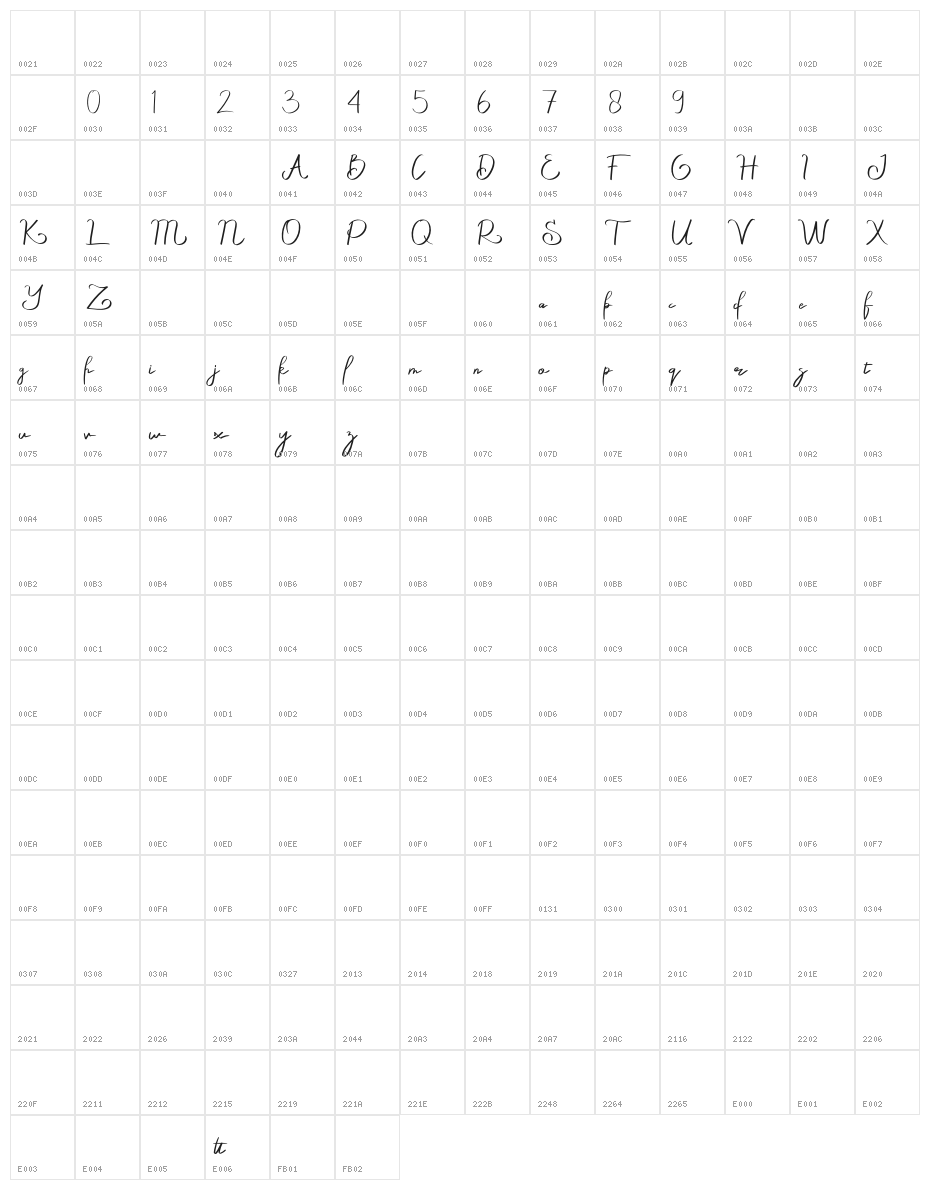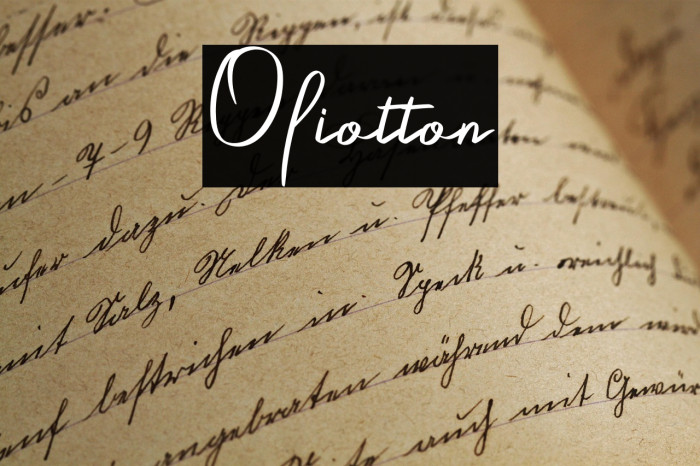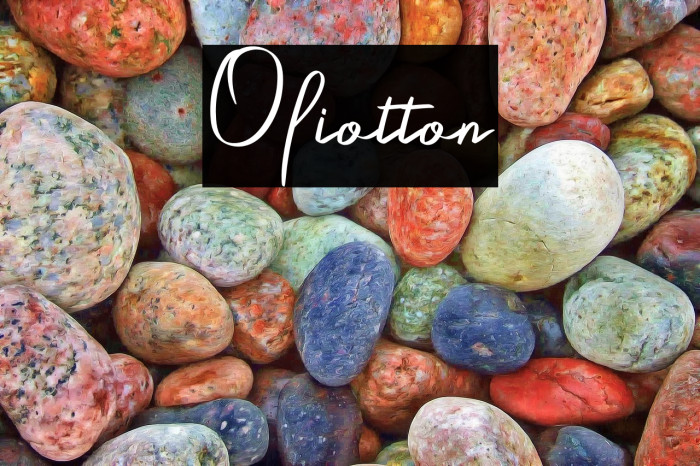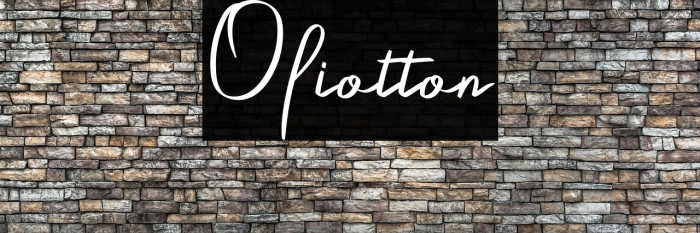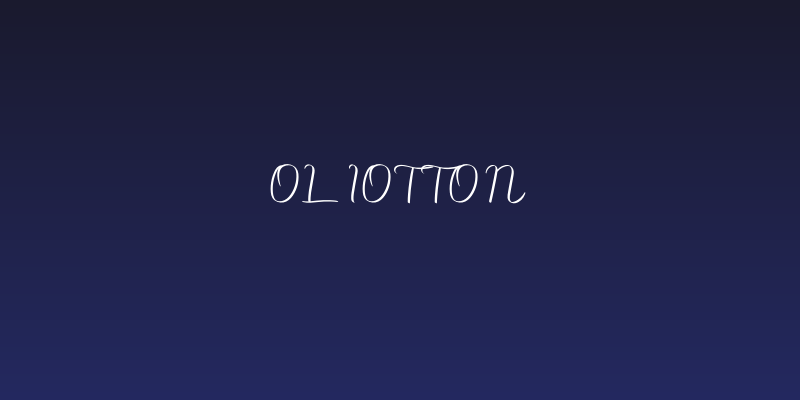
Oliotton Font
Oliotton Description
This font features a flowing, cursive style with elegant loops and swashes, giving it a handwritten appearance. The uppercase letters are tall and slender, with distinctive flourishes that add a touch of sophistication. The lowercase letters maintain a consistent slant, enhancing the script-like quality. Numbers are designed with a similar flair, ensuring cohesion across all characters. The overall look is both graceful and dynamic, making it suitable for creative and expressive designs.
| Proposed Projects | Ideal for wedding invitations, greeting cards, branding projects, and elegant logos. |